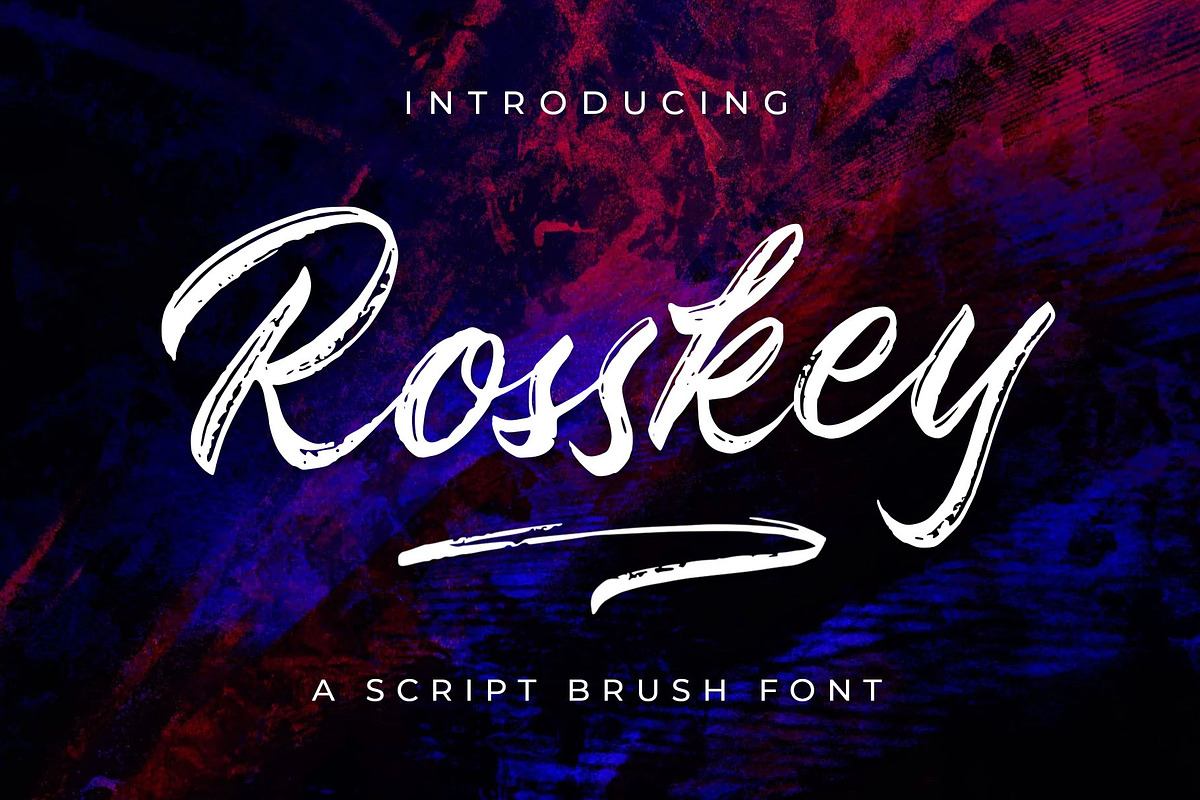
Rosskey Brush Font Free Download is a dynamic, expressive typeface with a hand-crafted brush style. Featuring bold strokes, rough edges, and a creative flair, Rosskey is perfect for posters, branding, logos, quotes, and other artistic designs that need a personal touch.
Its unique brush texture adds energy and authenticity to your work, making it ideal for anything from streetwear to creative marketing materials. Whether you're designing for a modern brand or a gritty creative project, Rosskey Brush Font Free Download delivers a powerful and stylish look.
This font works wonderfully in both print and digital designs, bringing boldness and artistic charm to every project.